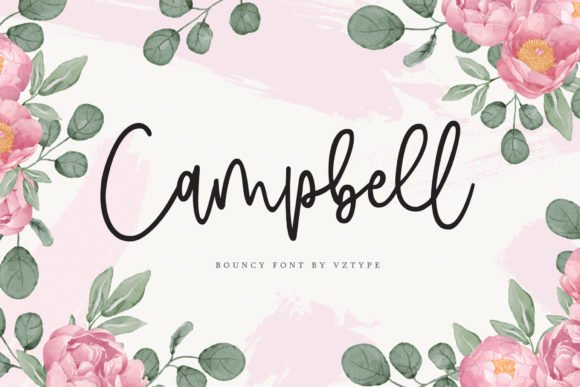
Discovering the Perfect Font: A Designer’s Dream
As designers, we’ve all been there – staring at a blank page, trying to bring our creative vision to life. And then, it happens: the perfect font comes along and everything falls into place. For me, that moment was when I discovered the Campbell Font.
This stylish modern calligraphy font is a game-changer for any design project. With its casual chic flair, Campbell Font is perfect for branding, wedding invites, cards, and so much more. Its versatility and timeless elegance make it a valuable addition to any designer’s toolkit. Whether you’re a seasoned pro or just starting out, Campbell Font is sure to elevate your designs and leave a lasting impression.
Campbell Font Key Features
• Unique Characteristics: Campbell Font features a unique, hand-drawn design with elegant curves and subtle flourishes, making it ideal for creative and artistic projects.
Campbell Font Review
First off, I want to say that Campbell Font is a great addition to any design project. ✨ The font’s elegant script style is perfect for creating a sense of luxury and sophistication. I particularly love the way the letters flow together, making it ideal for use in headings and titles.
One of the standout features of Campbell Font is its versatility. ✨ It comes in a range of weights, from light to bold, allowing you to adjust the font to suit your design needs. Additionally, the font is highly legible, making it easy to read even in smaller sizes.
• ⚠️ The font may not be ideal for use in body text, as it can be quite ornate and may be difficult to read in large blocks of text.
• ⚠️ The font’s script style may not be suitable for use in technical or instructional contexts, where a more straightforward font may be preferred.
Overall, I’m really impressed with Campbell Font. It’s a great choice for designers looking to add a touch of elegance and sophistication to their projects. With its versatility and high legibility, it’s a great addition to any design toolbox.
The Campbell Font is a versatile font suitable for various design projects, including:
• Branding and logo design
• Marketing materials (e.g., flyers, brochures, etc.)
• Web design and development
• Print media (e.g., business cards, letterheads, etc.)
For optimal results, pair the Campbell Font with high-quality images and balanced typography to create visually appealing designs.